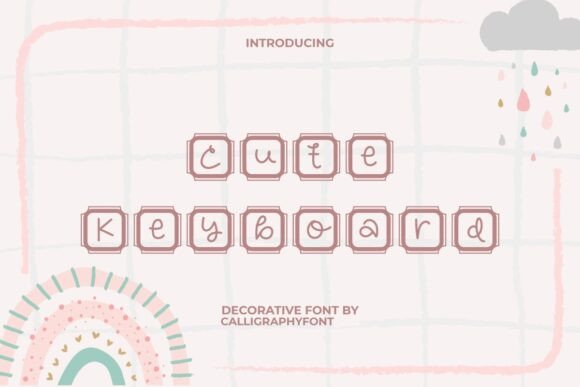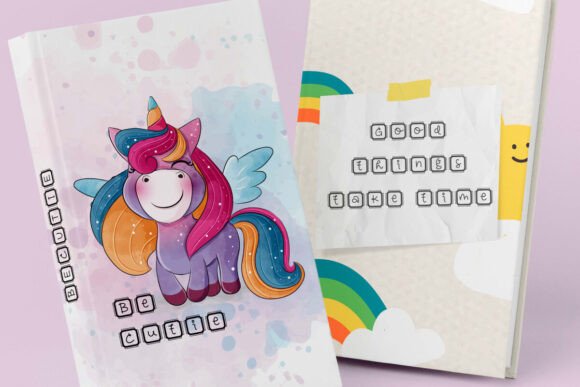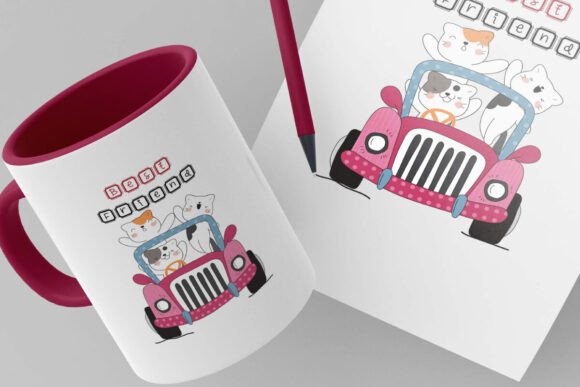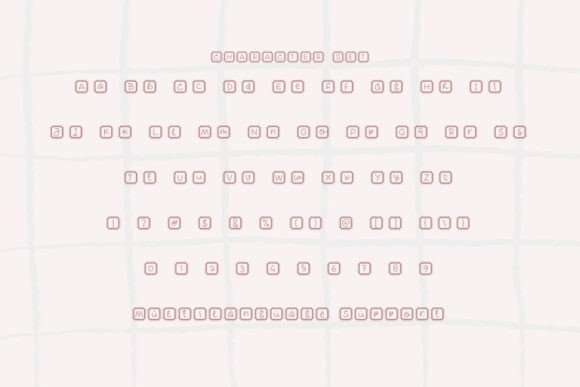
Cute Keyboard Font
About the Cute Keyboard Font
Let us introduce you to Cute Keyboard Font, where timeless design meets modern craftsmanship. Cute Keyboard is a cute fun and playful decorative font with a unique look. It cannot be denied that this is creative because the letters are trapped in blocks. It will look adorable and can be adapted to any design, such as billboard, brand logo, brochure, business card, cover, flyer, header, invitation, packaging design, pamphlet, poster, product label, quotes, screen print, stationery, sticker, title, website, and more.
Cute Keyboard’s playful design is ideally suited for headlines, short taglines, and branding elements where its unique character can shine. It works exceptionally well on packaging, posters, and social media graphics aimed at a younger or more whimsical audience. However, its decorative nature makes it unsuitable for body text or UI elements requiring high readability. Long paragraphs set in Cute Keyboard would be difficult to decipher.
The font’s inherent charm pairs well with clean sans-serif fonts like Open Sans or Lato for a balanced contrast. For a more playful approach, consider pairing it with a rounded geometric sans-serif like Montserrat. Avoid pairing it with other highly decorative fonts, as this can create visual clutter.
Cute Keyboard projects a fun, approachable, and slightly quirky personality, making it perfect for brands targeting a youthful demographic or products with a playful aesthetic. Its energy is best harnessed in short, impactful bursts of text.
Cute Keyboard Font Usage Examples
Cute Keyboard Font Example